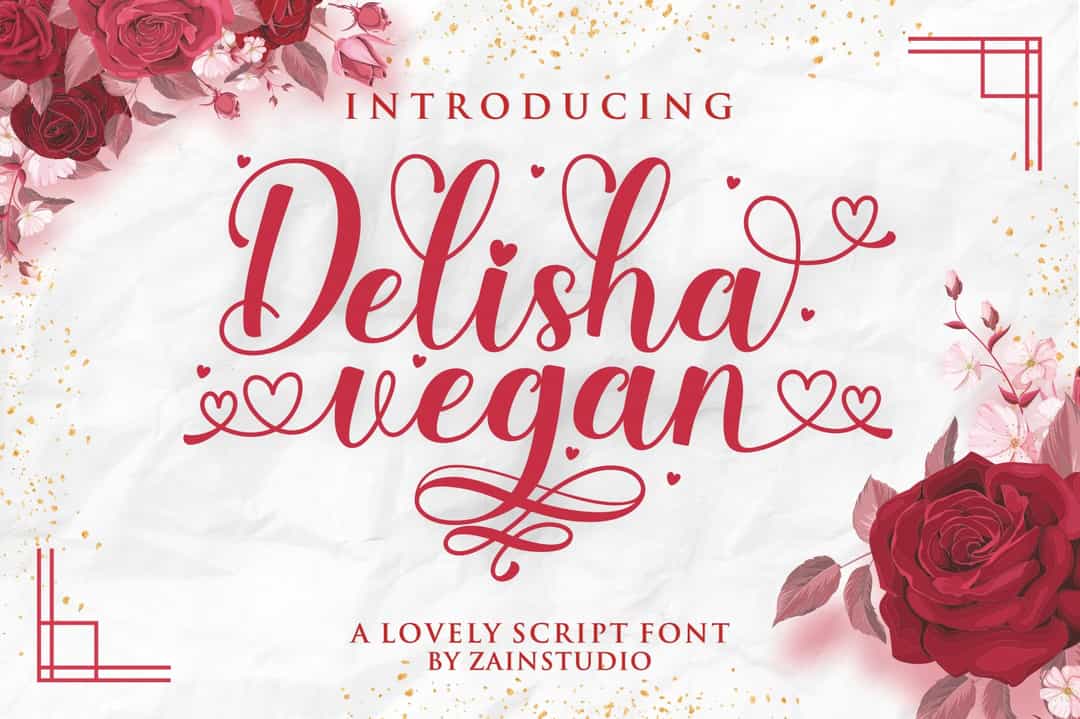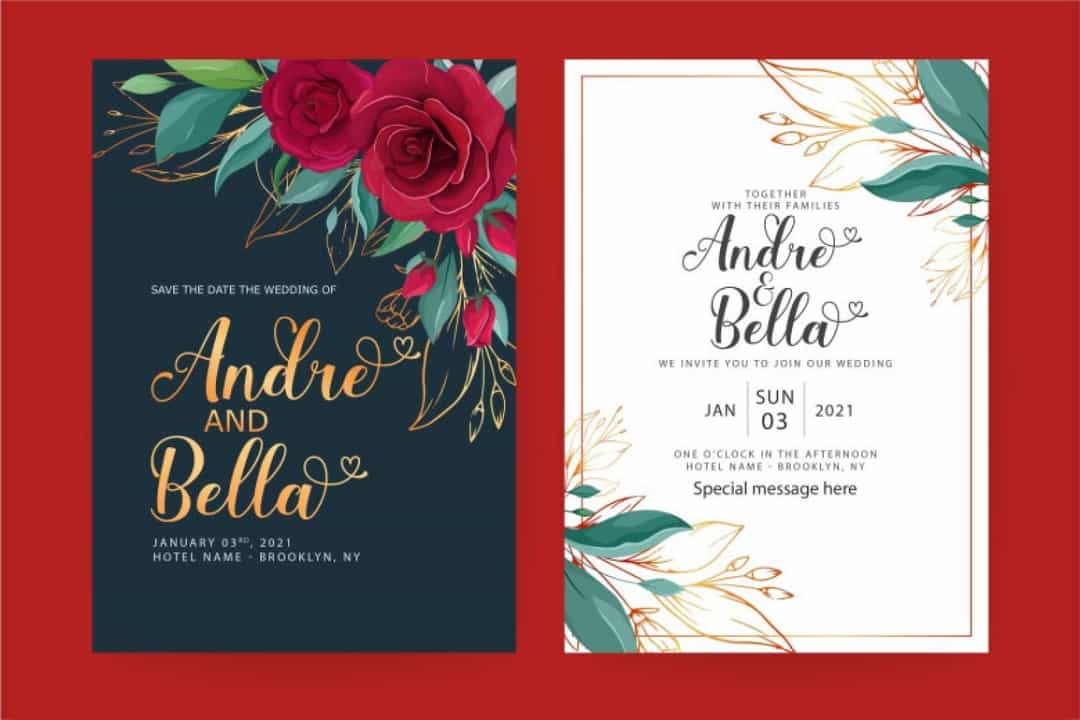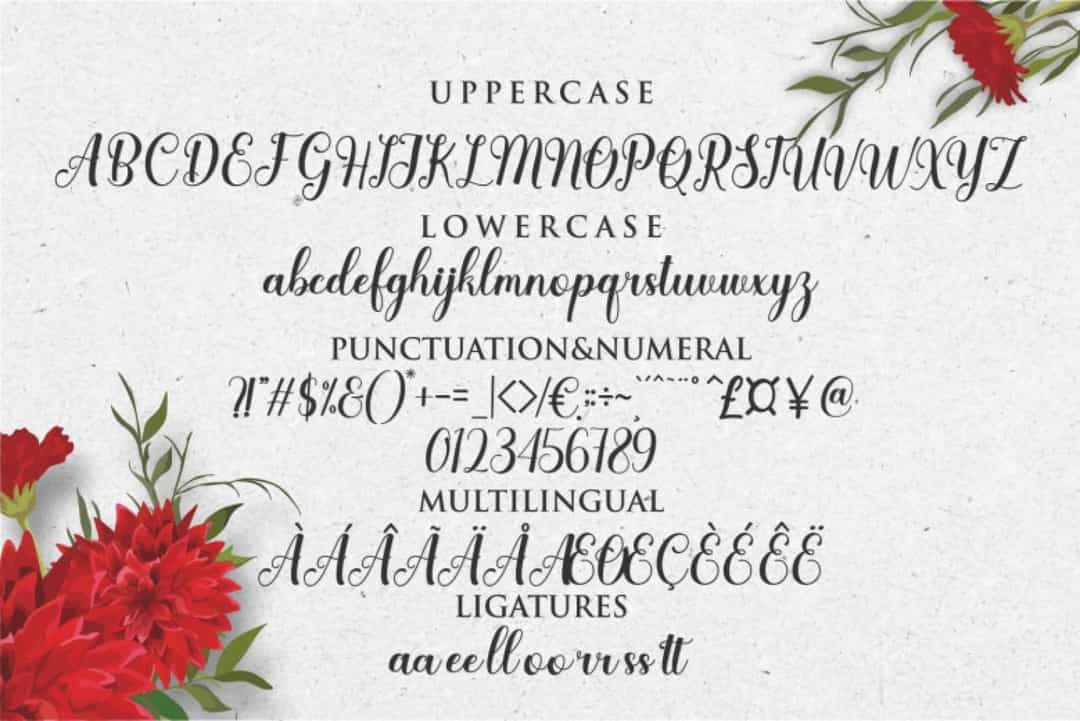
Delisha Vegan font is an elegant script font with unique heart-shaped characters that add a romantic flourish to any craft project! Perfect for use across designs such as Logotypes, Cricut cuts and Silhouette cut designs as well as wedding invites, Valentine’s Day designs and so much more – making Delisha Vegan the ideal romantic touch!